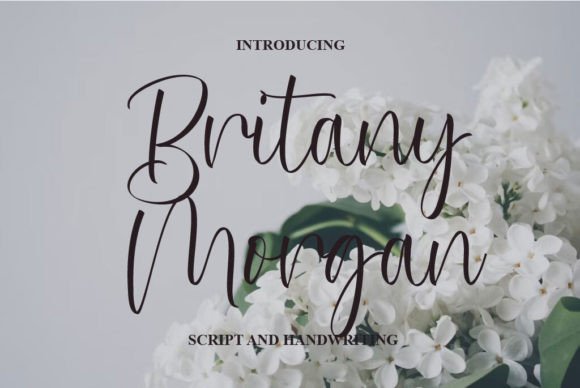
Introducing the Elegant Britany Morgan Font: Elevate Your Designs with Sophistication
Are you searching for a font that exudes elegance and sophistication? Look no further than the stunning Britany Morgan Font. This beautiful script font is perfect for adding a touch of luxury to any project, from wedding invitations to branding and elegant designs. In this article, we’ll dive into the details of the Britany Morgan Font and explore its features, uses, and benefits.
The Characteristics of Britany Morgan Font
Britany Morgan is a dazzling script font that boasts graceful strokes and intricate details. Its delicate curves and refined lines make it a standout in the world of typography. This font is designed to captivate the eye, drawing attention to the text with its elegant and sophisticated style.
One of the key features of Britany Morgan is its timeless appeal. Unlike some fonts that may go out of style quickly, Britany Morgan’s classic design ensures that it will remain relevant for years to come. Whether you’re creating a wedding invitation or a luxury brand logo, this font is sure to make a lasting impression.
Uses for Britany Morgan Font
So, what can you use the Britany Morgan Font for? The possibilities are endless! Here are a few ideas to get you started:
- Wedding Invitations: Add a touch of elegance to your wedding invitations with Britany Morgan. Its delicate curves and refined lines make it perfect for formal wedding announcements.
- Branding: Elevate your luxury brand with the sophisticated style of Britany Morgan. This font is ideal for high-end brands that want to convey elegance and refinement.
- Elegant Designs: Whether you’re creating a logo, brochure, or website, Britany Morgan is a great choice for adding a touch of sophistication to your designs.
Benefits of Using Britany Morgan Font
So, why choose Britany Morgan Font for your next project? Here are just a few benefits of using this stunning script font:
- Elegance: Britany Morgan exudes elegance and sophistication, making it perfect for high-end designs.
- Timeless Appeal: This font’s classic design ensures that it will remain relevant for years to come.
- Versatility: Britany Morgan can be used for a wide range of projects, from wedding invitations to branding and elegant designs.
- Easy to Read: Despite its intricate details, Britany Morgan is easy to read, making it perfect for body text and headlines.
Tips for Using Britany Morgan Font
To get the most out of Britany Morgan Font, here are a few tips to keep in mind:
- Use it sparingly: While Britany Morgan is a beautiful font, it can be overwhelming if used too much. Use it sparingly to add a touch of elegance to your designs.
- Pair it with a sans-serif font: For body text, consider pairing Britany Morgan with a sans-serif font to create contrast and visual interest.
- Adjust the size: Experiment with different sizes to find the perfect fit for your design. Britany Morgan can be used for both headlines and body text.
In conclusion, the Britany Morgan Font is a stunning script font that exudes elegance and sophistication. Its timeless appeal, delicate curves, and refined lines make it perfect for adding a touch of luxury to any project. Whether you’re creating a wedding invitation, branding a luxury brand, or designing an elegant brochure, Britany Morgan is a great choice. With its versatility, ease of use, and beautiful design, this font is sure to become a favorite in your typography collection.
- What type of font is Britany Morgan? Britany Morgan is a script font.
- Is Britany Morgan suitable for body text? While Britany Morgan can be used for body text, it’s recommended to use it sparingly and pair it with a sans-serif font for better readability.